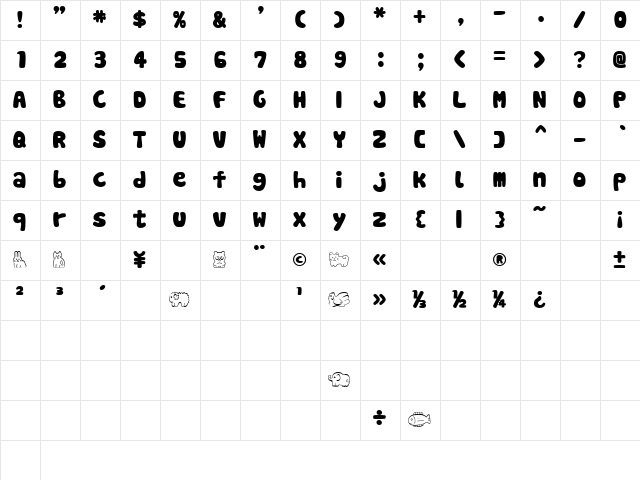
Cookies Regular
Design Context for Cookies
Cookies is a composed and adaptable typeface that performs quietly and consistently across a wide range of design contexts.